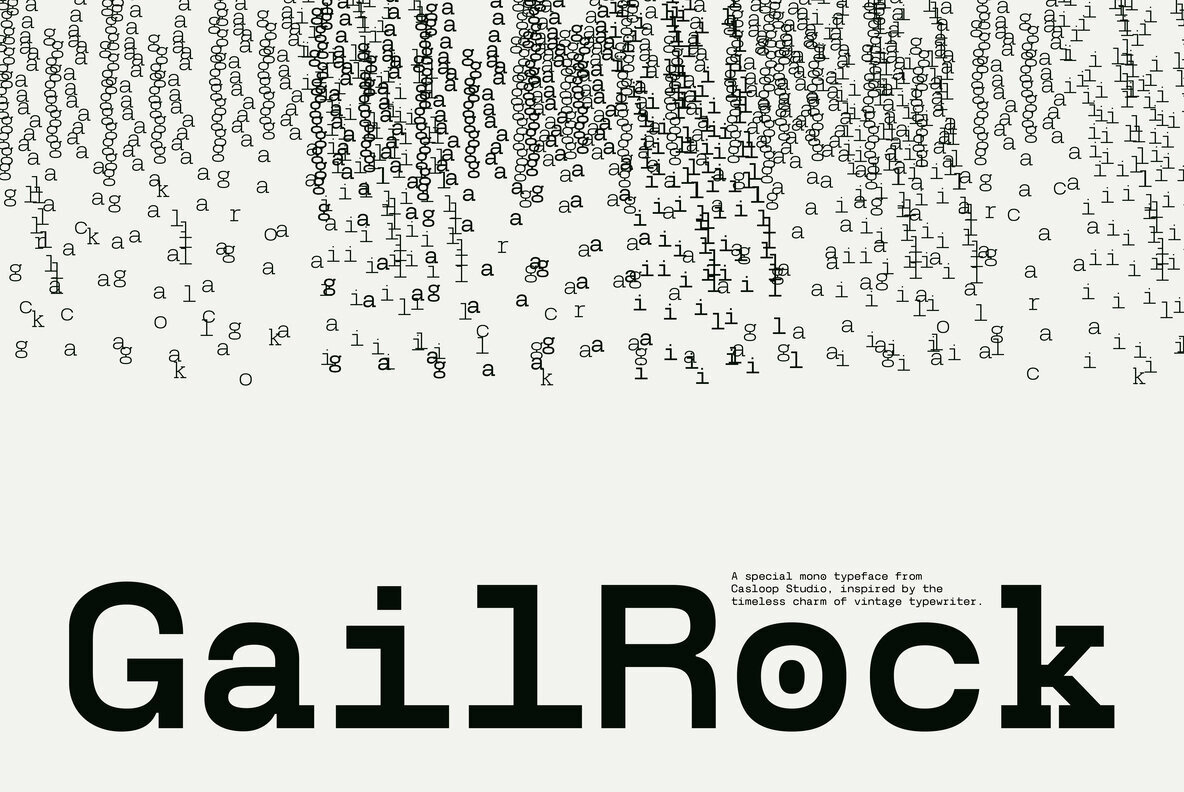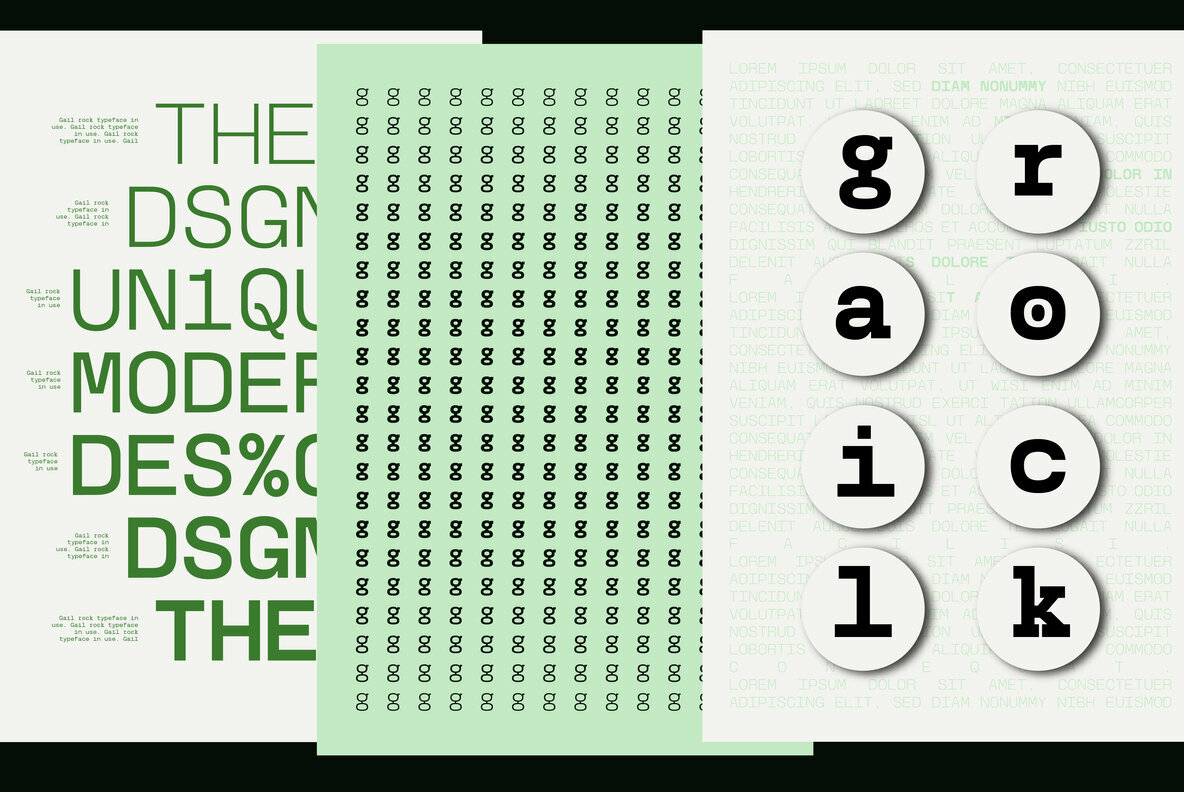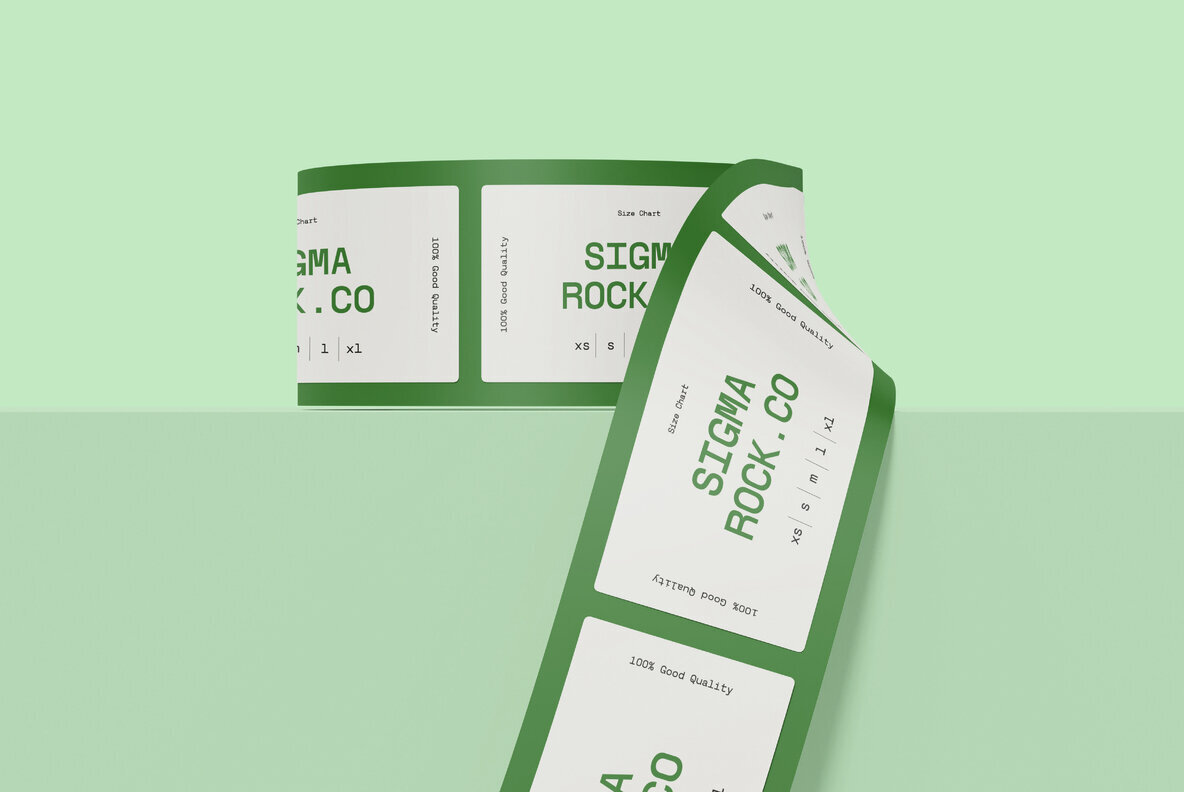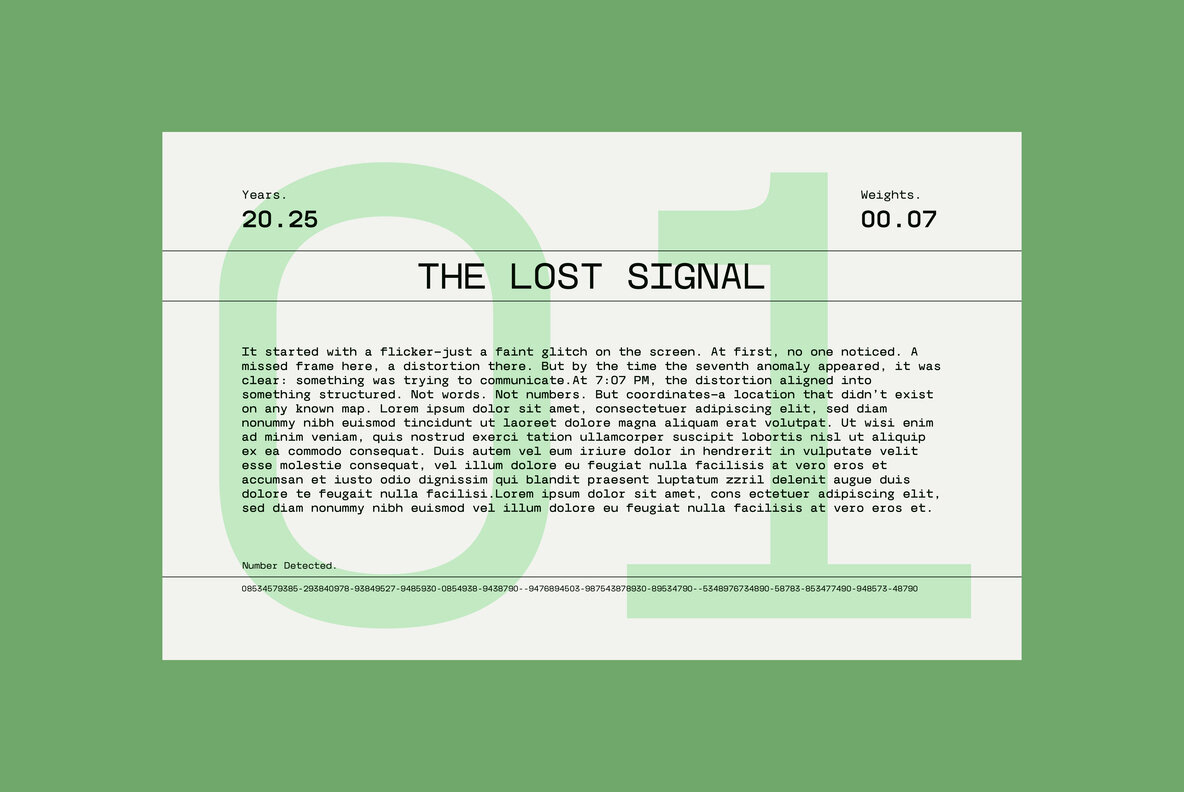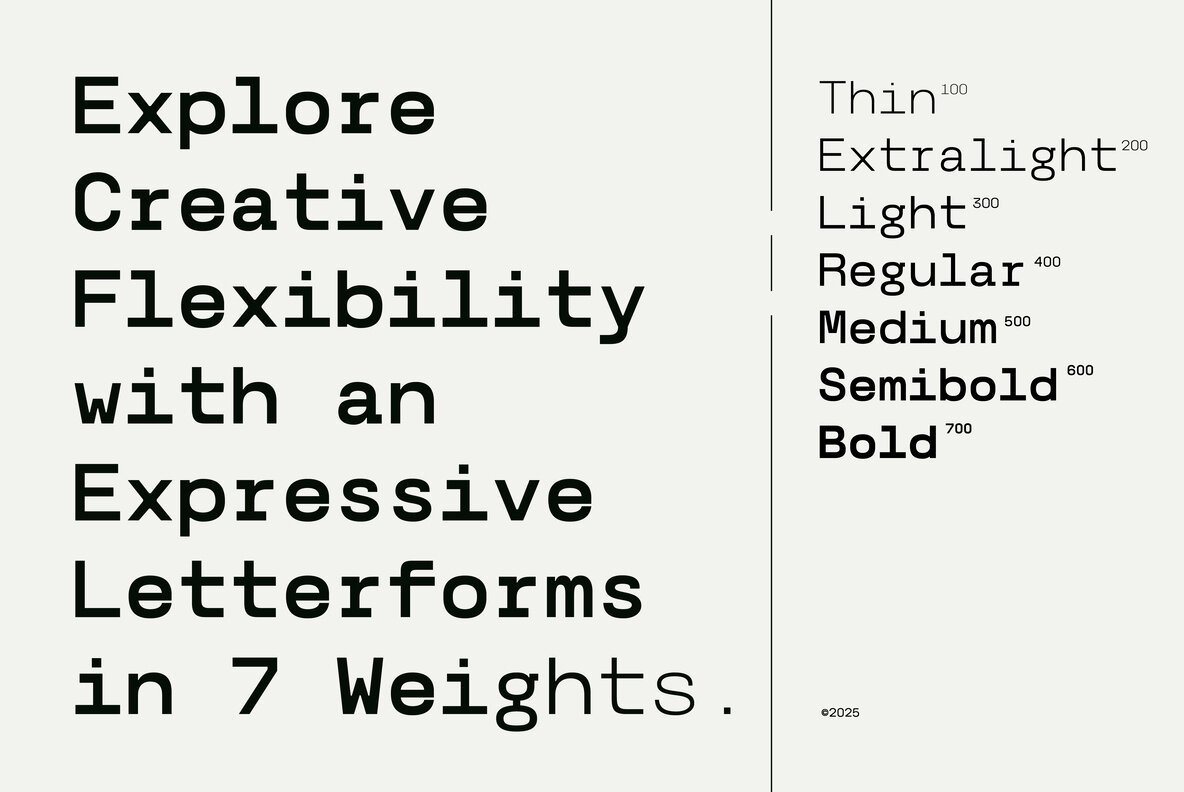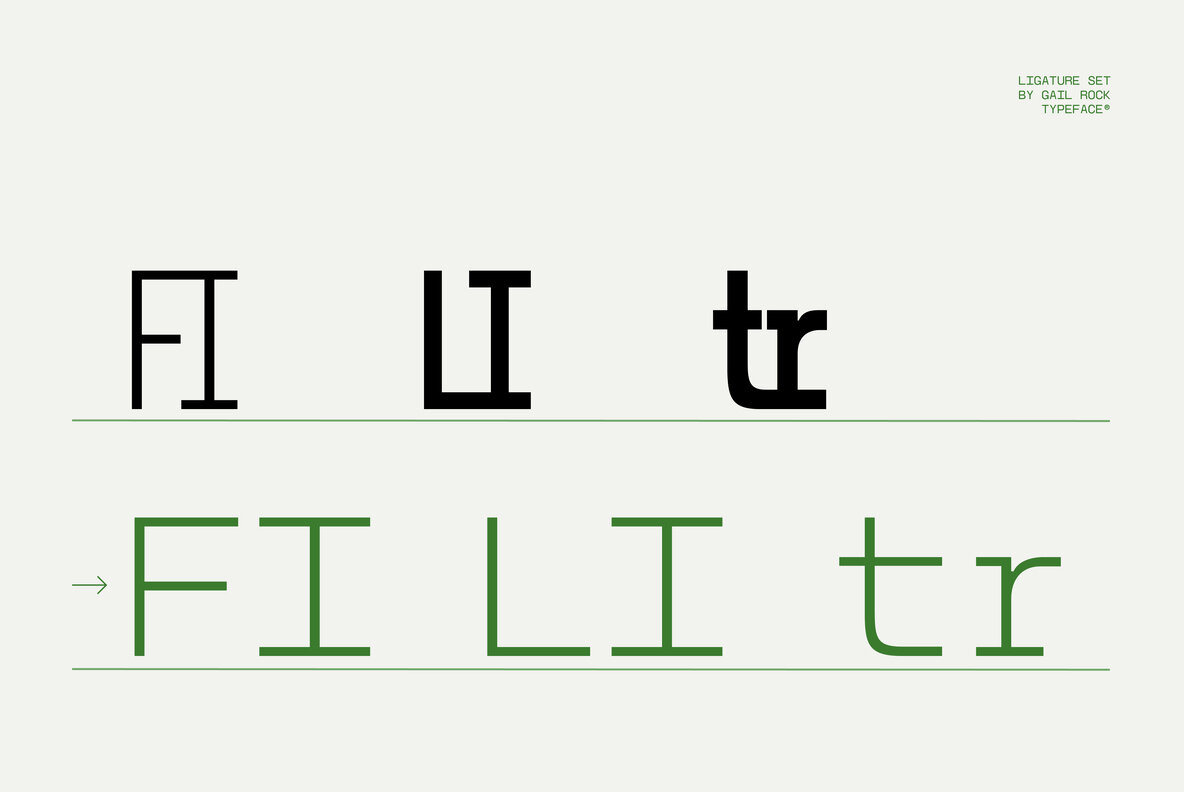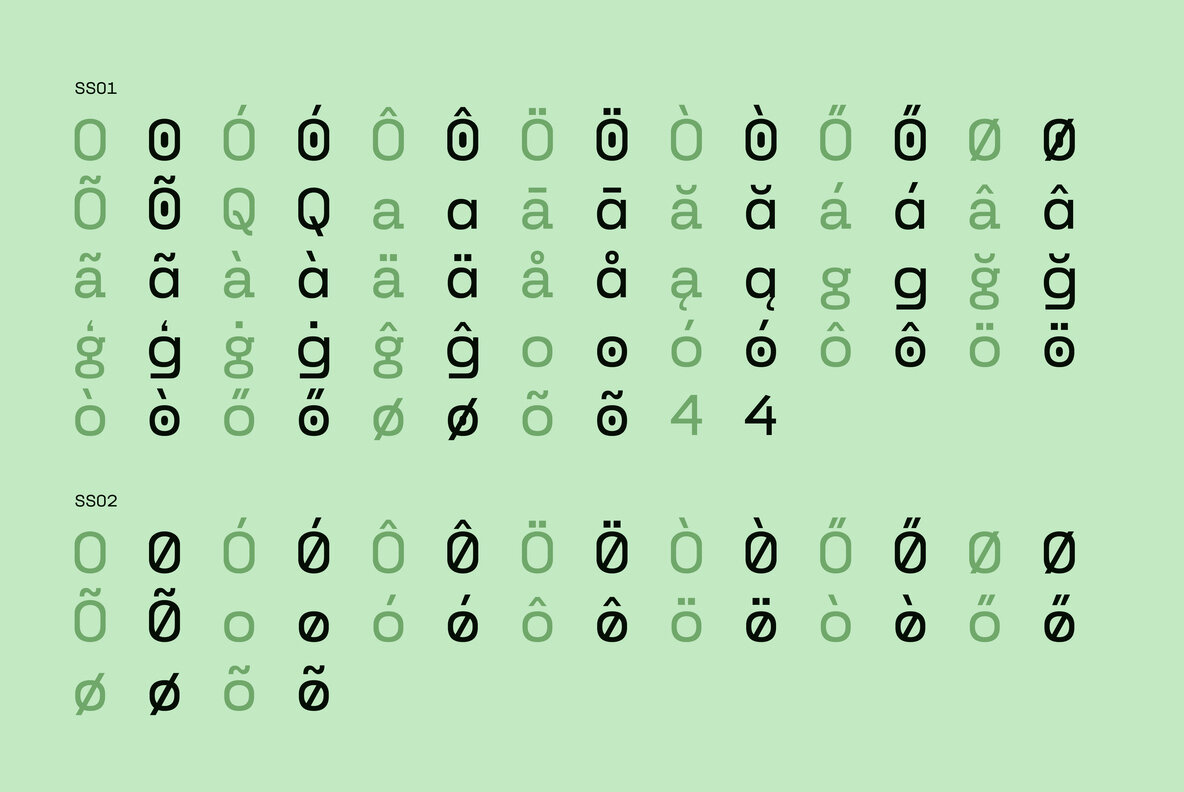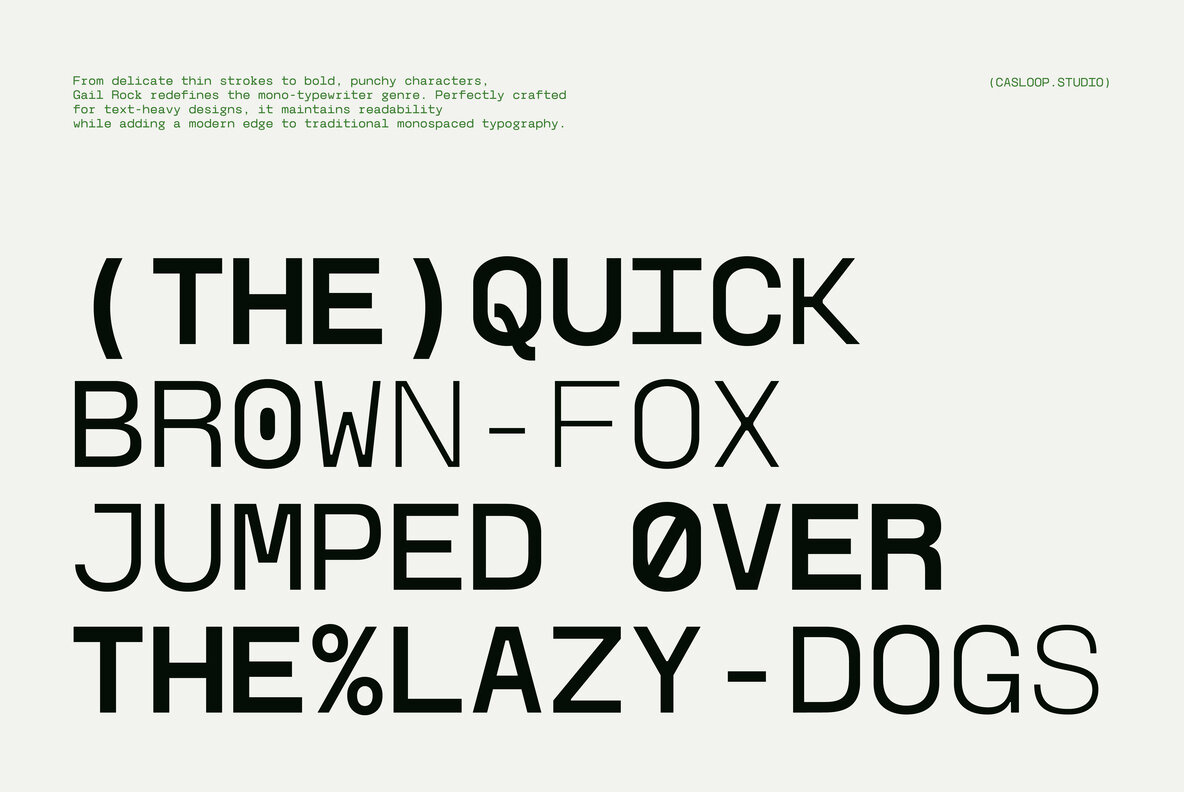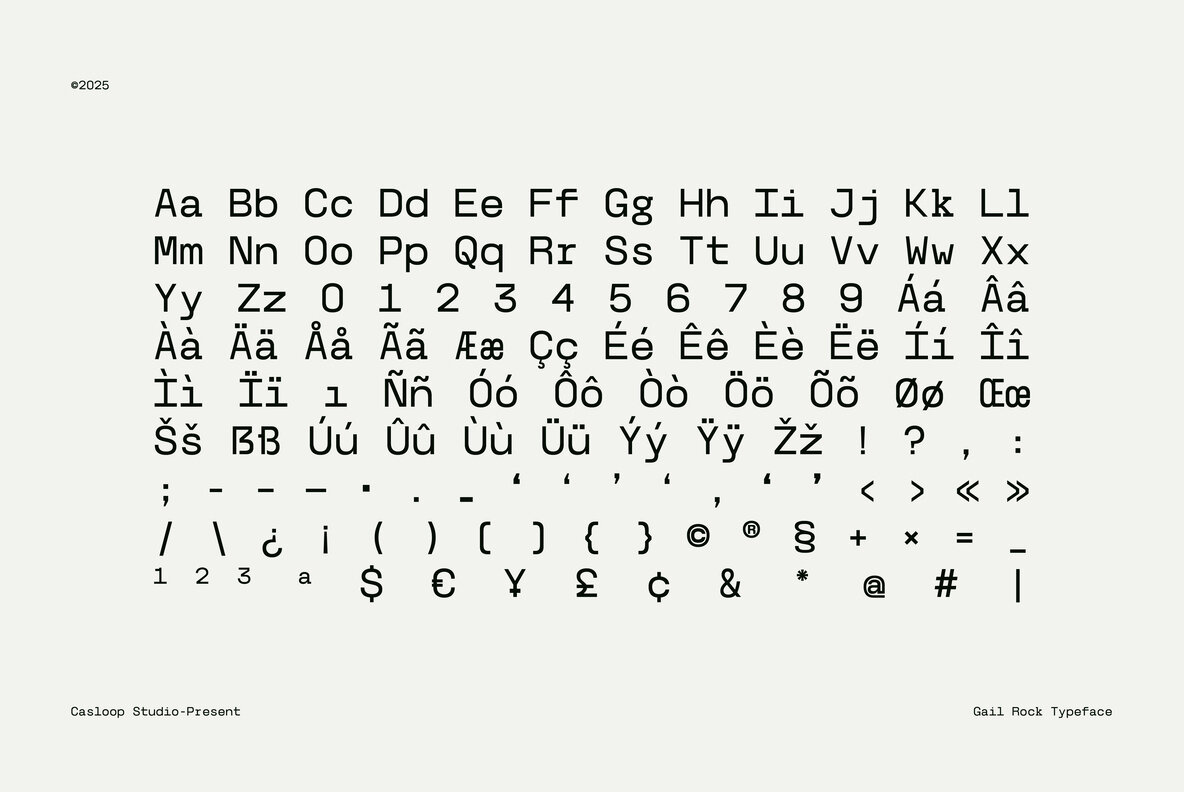
Gail Rock Font
Discover the allure of Gail Rock, a mono-typeface that combines grit and charm with a sleek, modern attitude. Drawing inspiration from the raw mechanics of typewriters, this font merges nostalgic touches with digital clarity. Whether crafting precise coding blocks or designing editorial layouts, Gail Rock offers solid consistency and expressive flexibility across seven distinctive weights. Designed with a modular mono structure, each character emits its own personality. From the striking lowercase 'g' to the defined capital 'I', this typeface brings life to any project demanding clarity, control, and a touch of flair. Embrace the harmony of analog nostalgia and digital precision with Gail Rock—the ideal choice for creating layouts that stand out with rhythm and character.Gail Rock: Modern Monospace with Vintage Charm